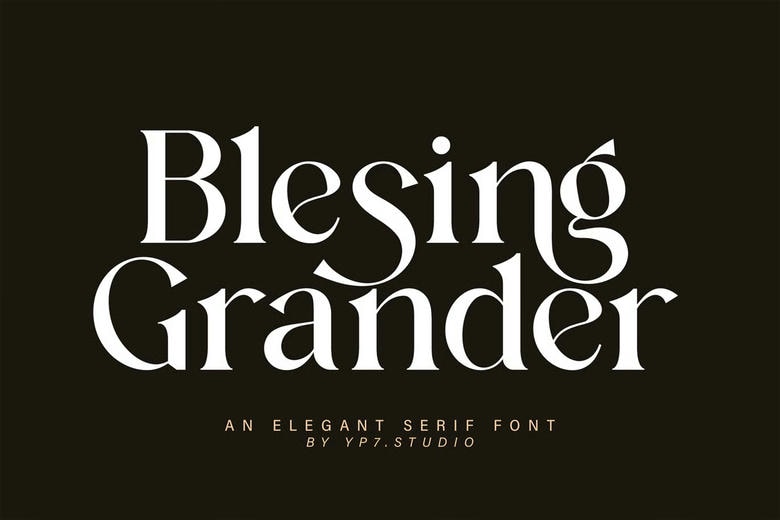
Blesing Grander Font
Blesing Grander Font is a nice serif typeface that was designed by YP7. Studio. It was developed to look graceful, with sweeping curves and a high level of contrast between thick and thin lines, which give it a luxurious look. It is ideal in high end branding, editorial design, invitations and any design project which requires an element of sophistication and eternal beauty in its letterforms.
Blesing Grander Serif Font